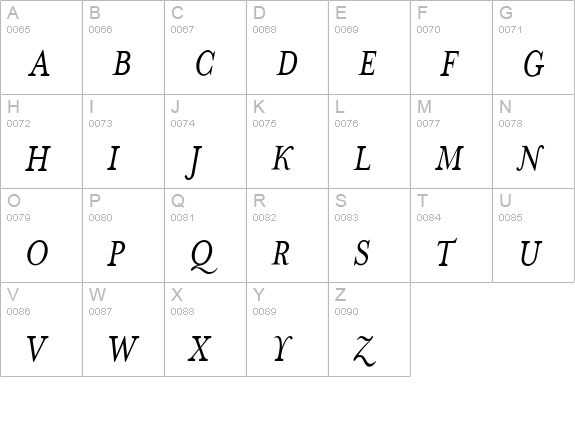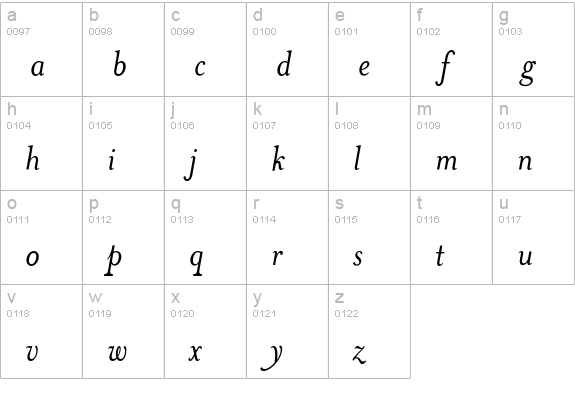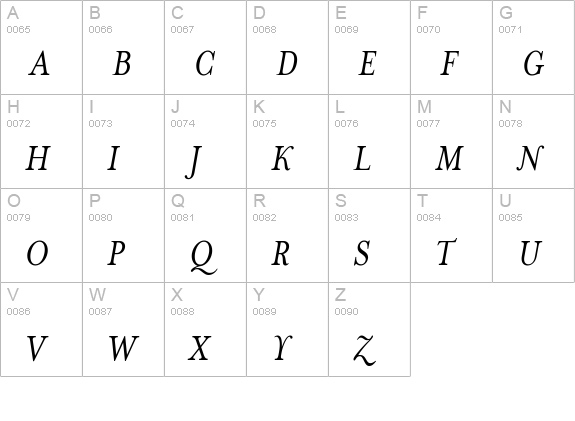
MrsEavesSmartLig-Italic Font Details
MrsEavesSmartLig-Italic is a distinctive, italic variant in the MrsEavesSmartLig typeface family \xE2\x80\x94 well suited to design and typography projects.
MrsEavesSmartLig-Italic font is a stylish and elegant typeface that exudes sophistication and charm. With its italicized design, this font adds a touch of flair to any text or design project. The graceful curves and delicate lines of MrsEavesSmartLig-Italic make it a perfect choice for conveying a sense of refinement and sophistication. Best of all, MrsEavesSmartLig-Italic font is available for free download at FontsMarket.com. Whether you're a designer looking to add a touch of elegance to your projects or a writer seeking a font that conveys a sense of class, MrsEavesSmartLig-Italic is the ideal choice. Download it now and elevate your designs with this exquisite typeface.